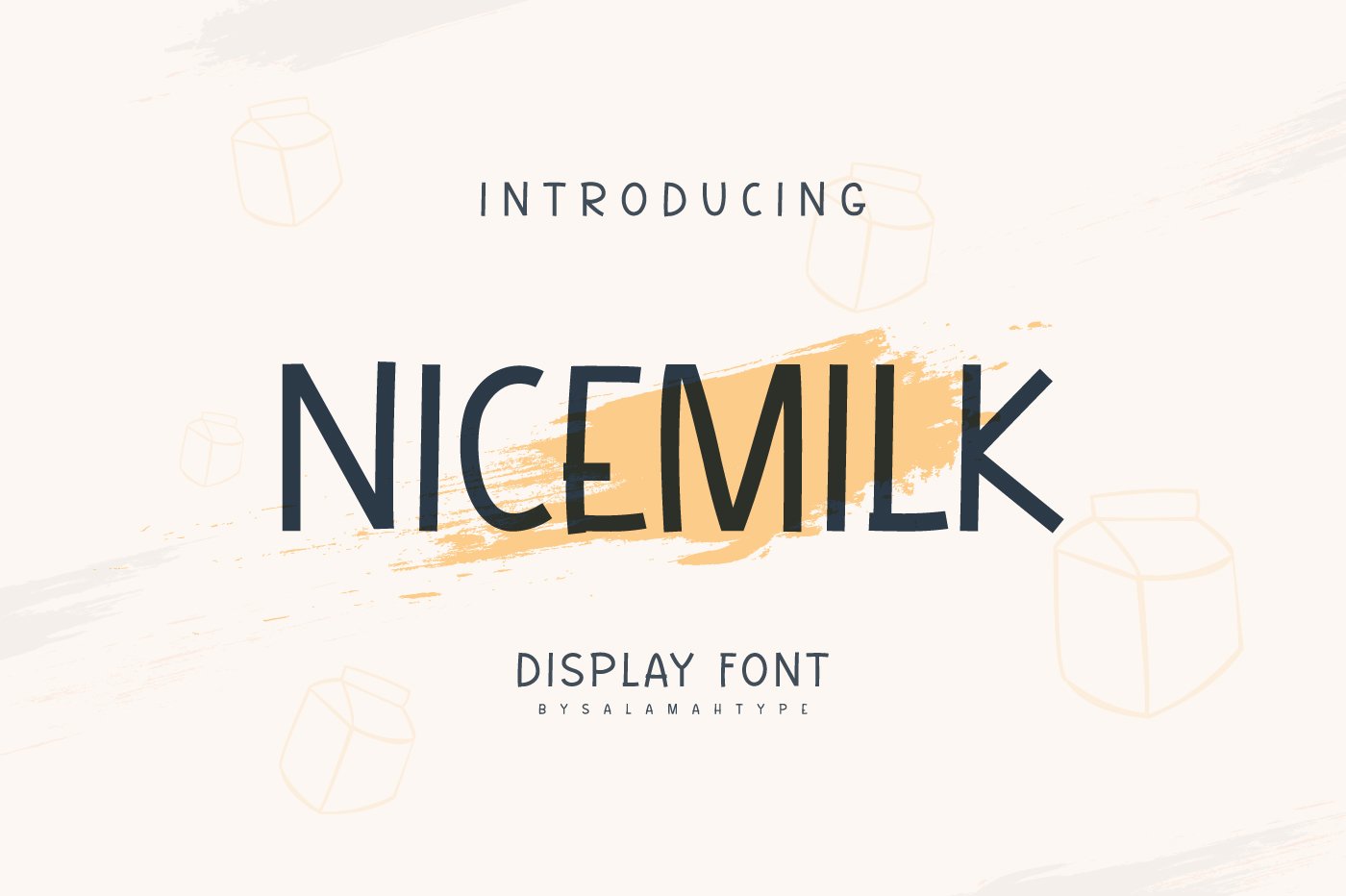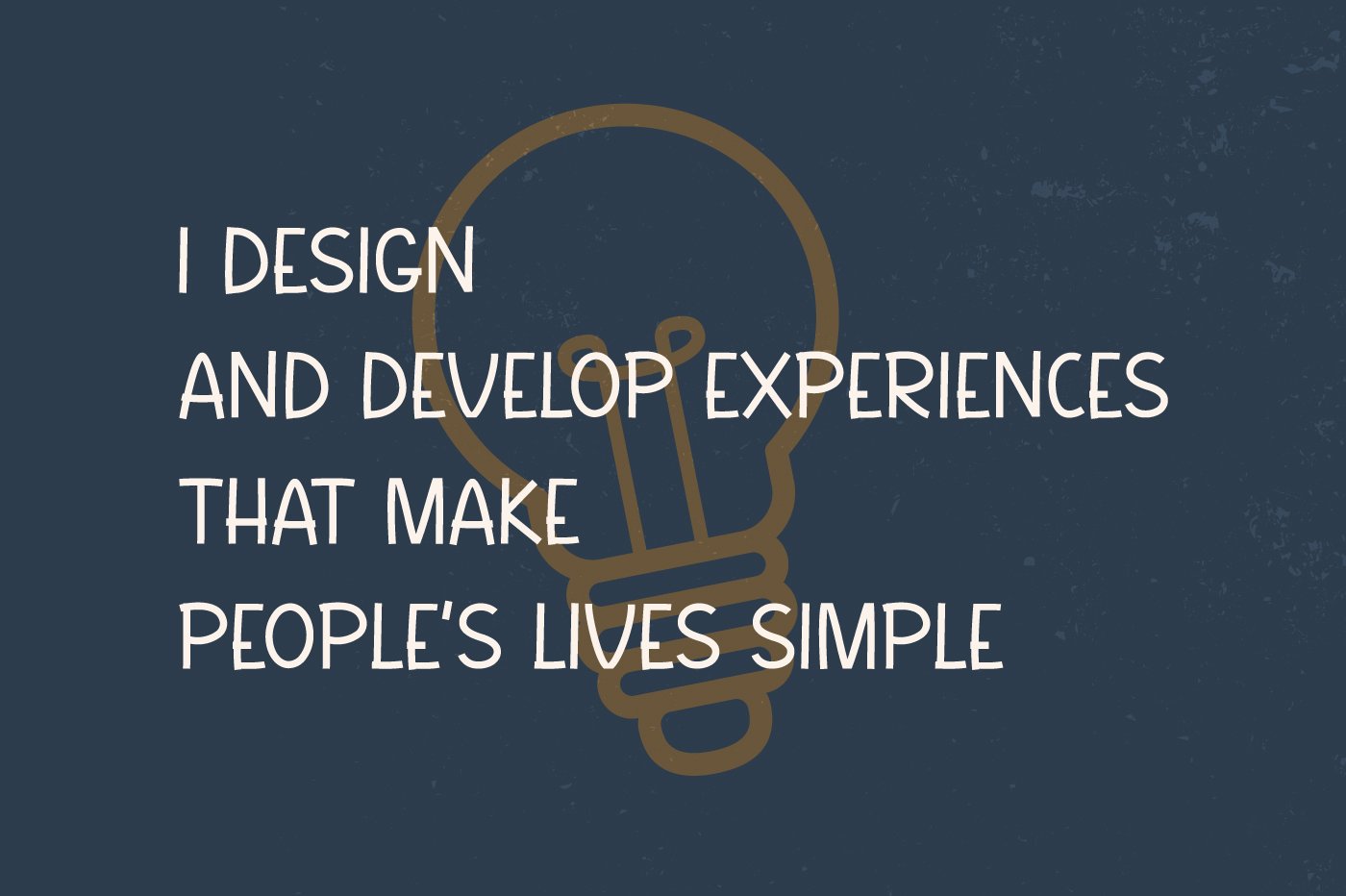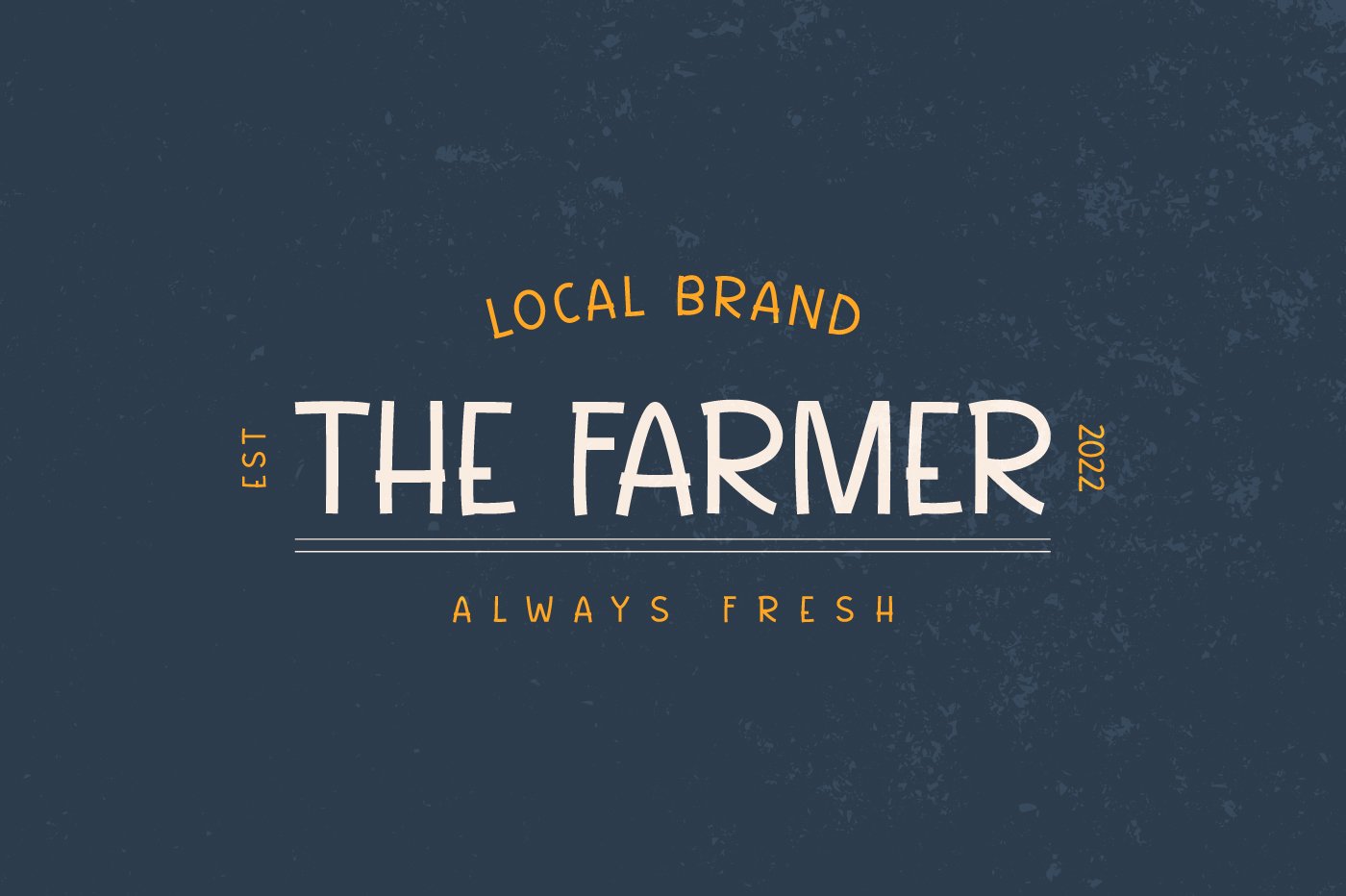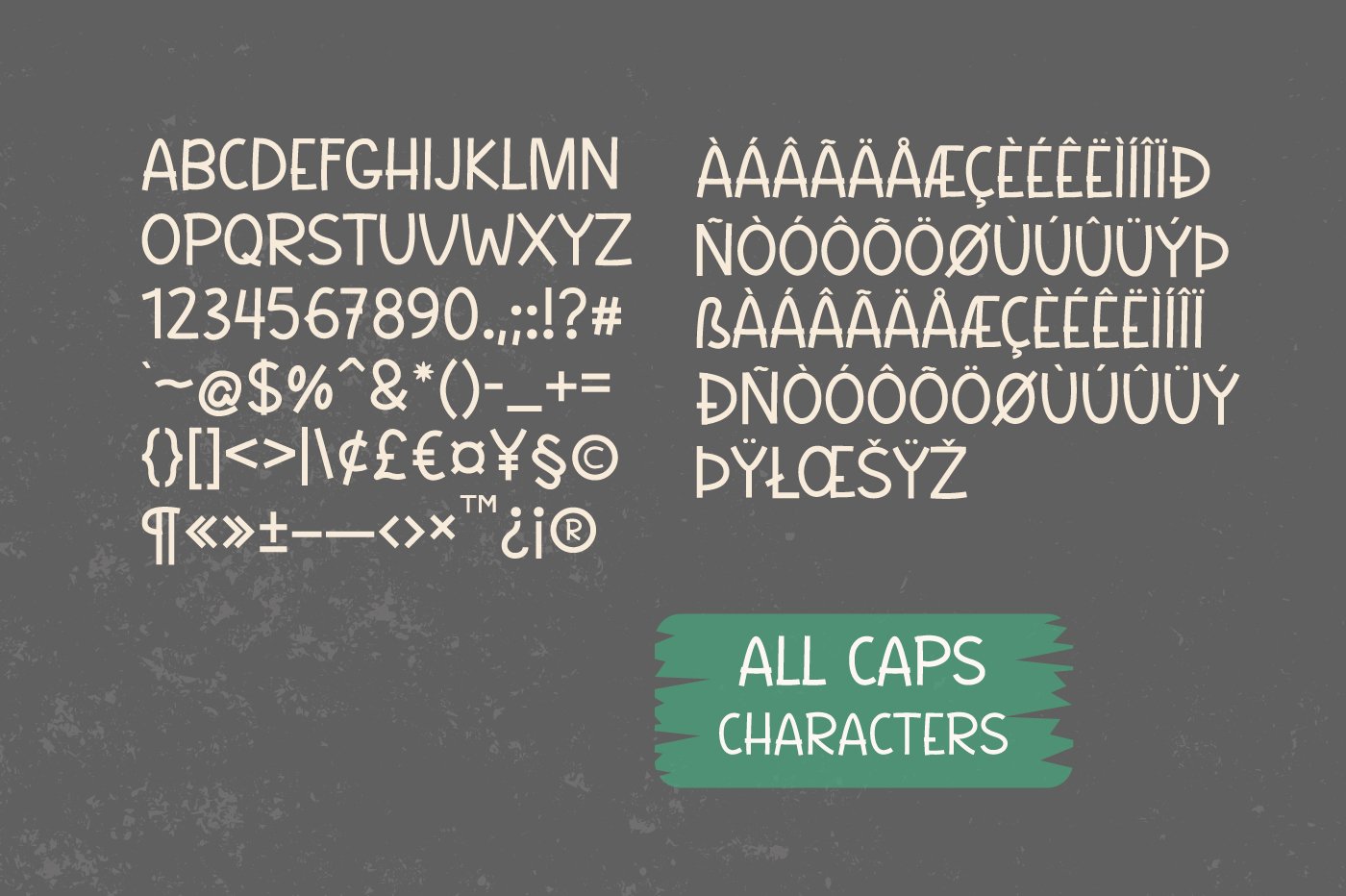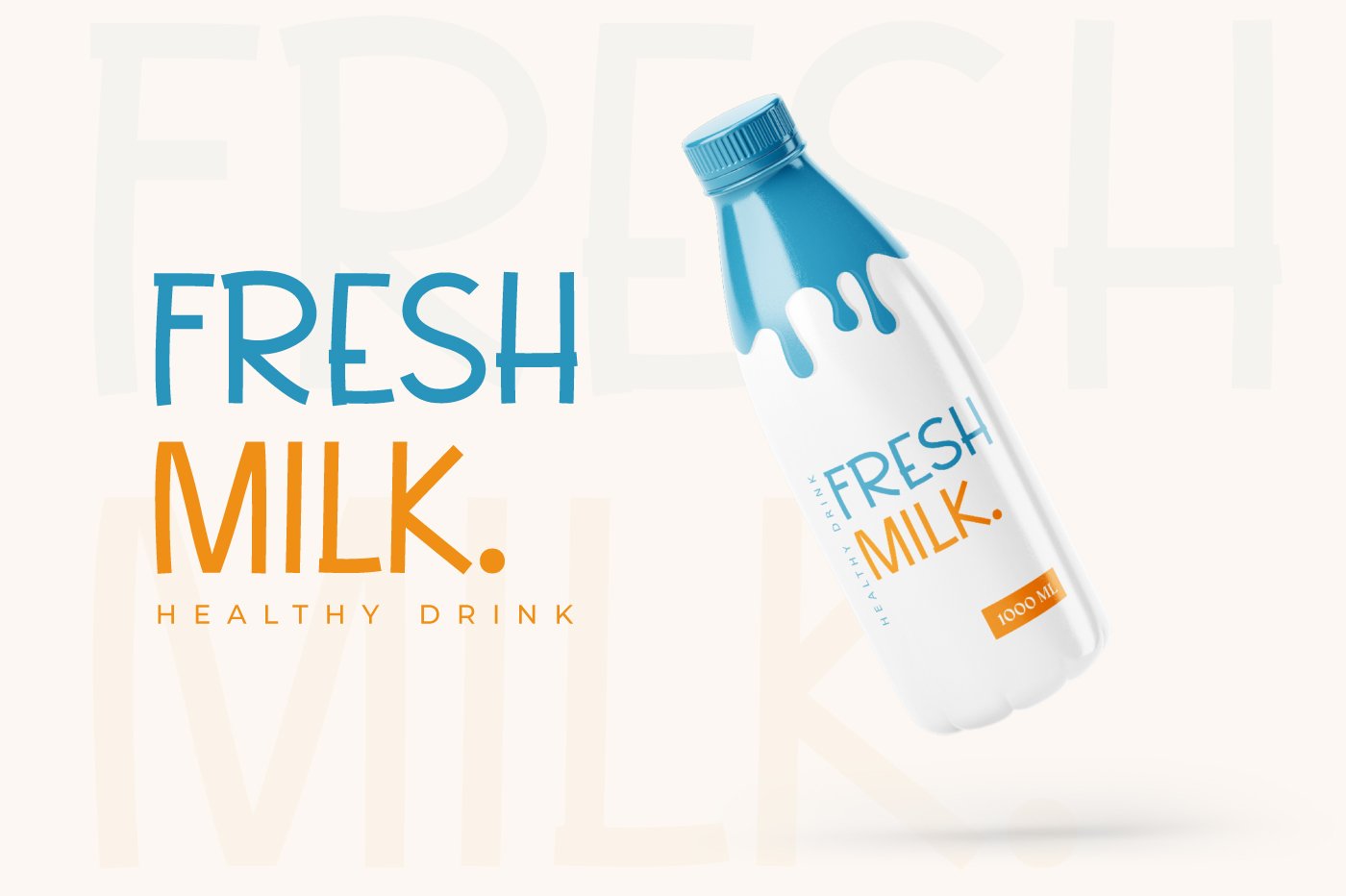
- Nicemilk
Nicemilk is a unique font with all-caps style, comes with multilingual perfect for your projects, branding products, logos, product packaging, merchandise and more.
Features :
- All-Caps
- Punctuation & Symbol
- Multilingual